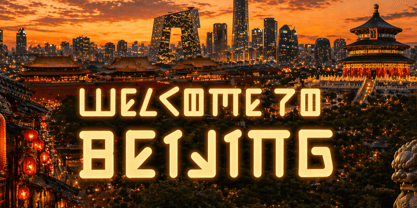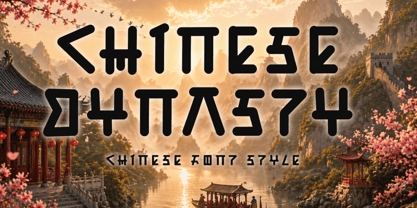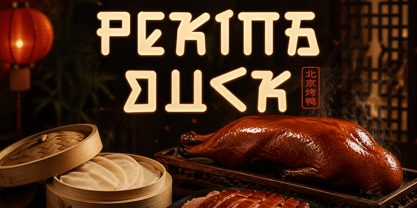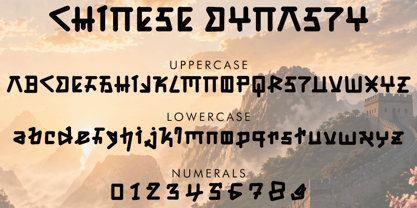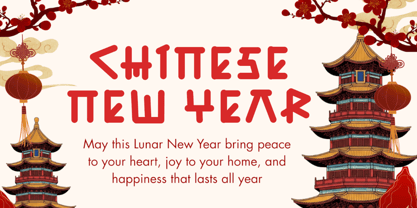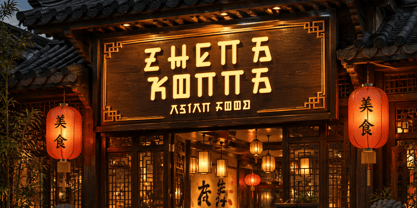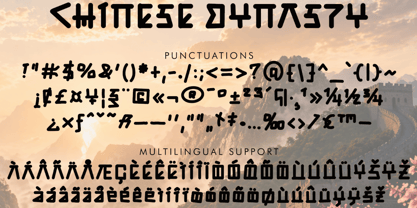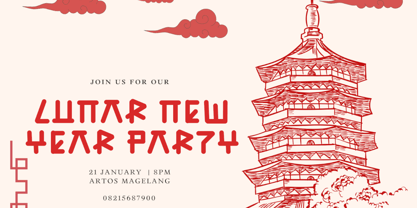
Chinese Dynasty
The Chinese Dynasty Font Family was designed by Isroni Yoga Prasetya and published by Yoga Letter. Chinese Dynasty contains 1 styles. More about this family
"Chinese Dynasty" is a unique and elegant Chinese-style font. It features uppercase and lowercase letters, numerals, punctuations, and multilingual support. It's perfect for exploring Asia, advertising, business branding, logos, print, banners, posters, invitations, summer, spring, Teacher's Day, back to school, basketball, sports, culinary, and more.